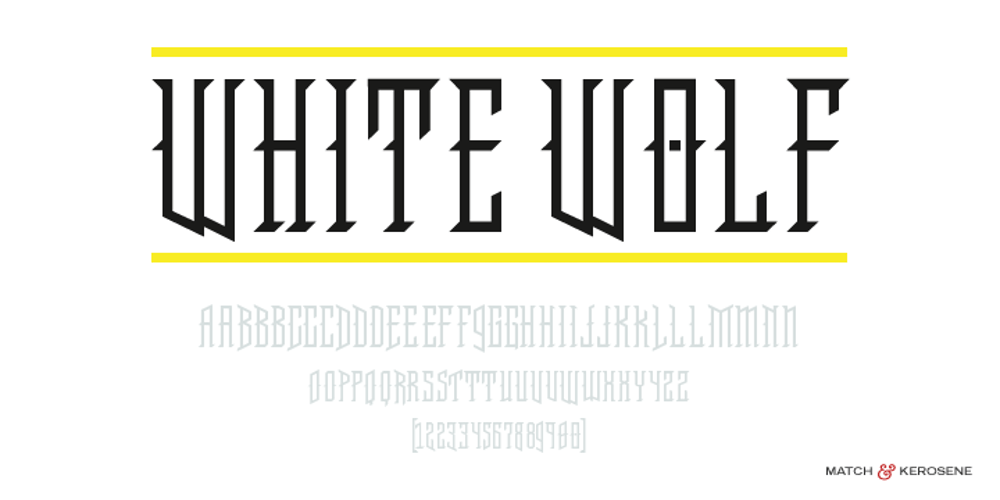
White Wolf Font Family was designed by Alex Sheldon and published by Match & Kerosene. White Wolf contains 1 styles and family package options. Set it large… I dare you! 100pt+ is definitely encouraged with this face. White Wolf was created to fill the void for condensed sharp wedge serif fonts. Taking inspiration from other hybrid fonts such as FF Dog, FF Vortex and HI Halfway House, I wanted to create a font that would offer something different for artists looking for a condensed font that has a lot of character. Use it for titles, subtitles, logos, posters, signs and pair it with some heavy wood types or slab serifs and you will be pleased with the attitude White Wolf will bring to your project!